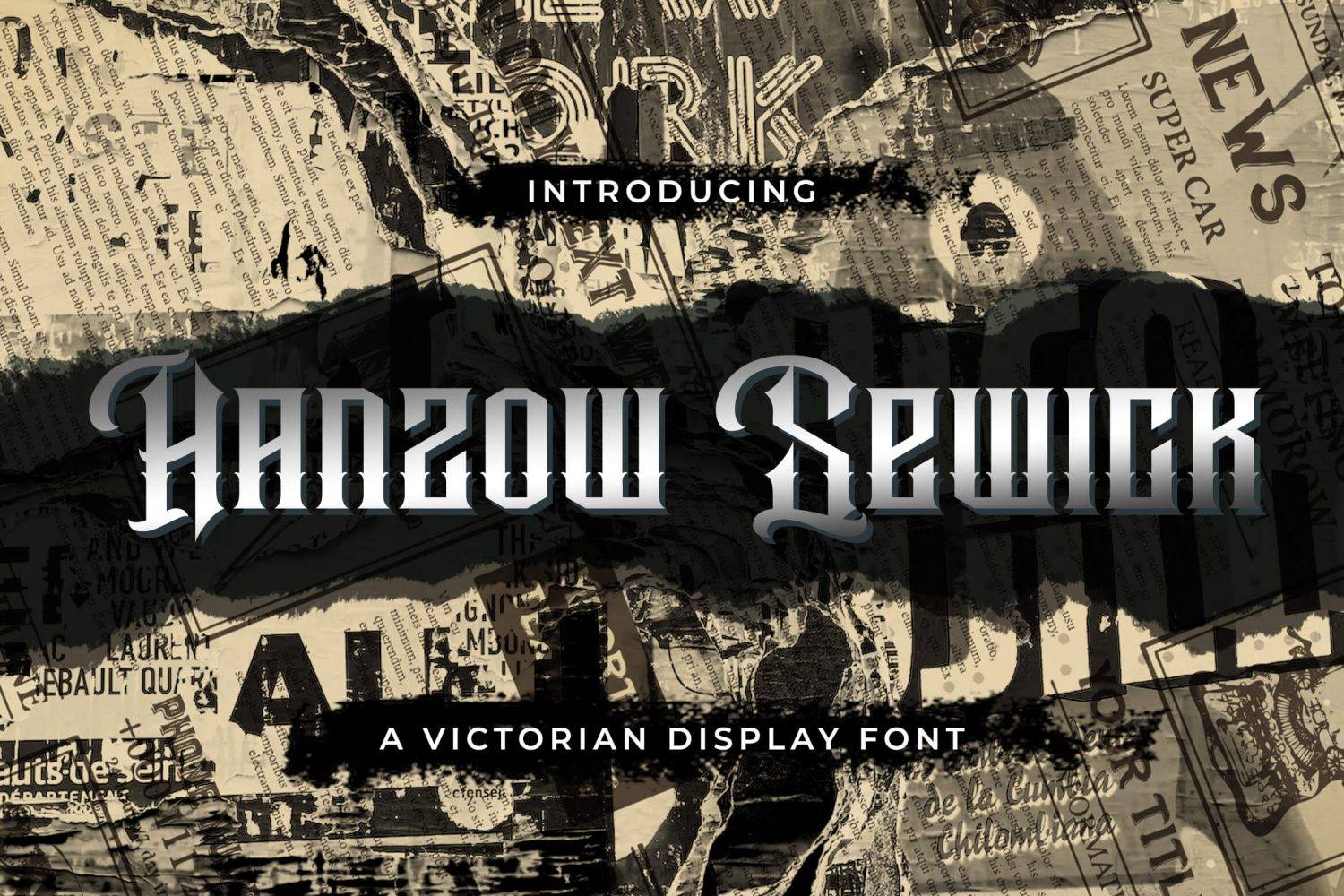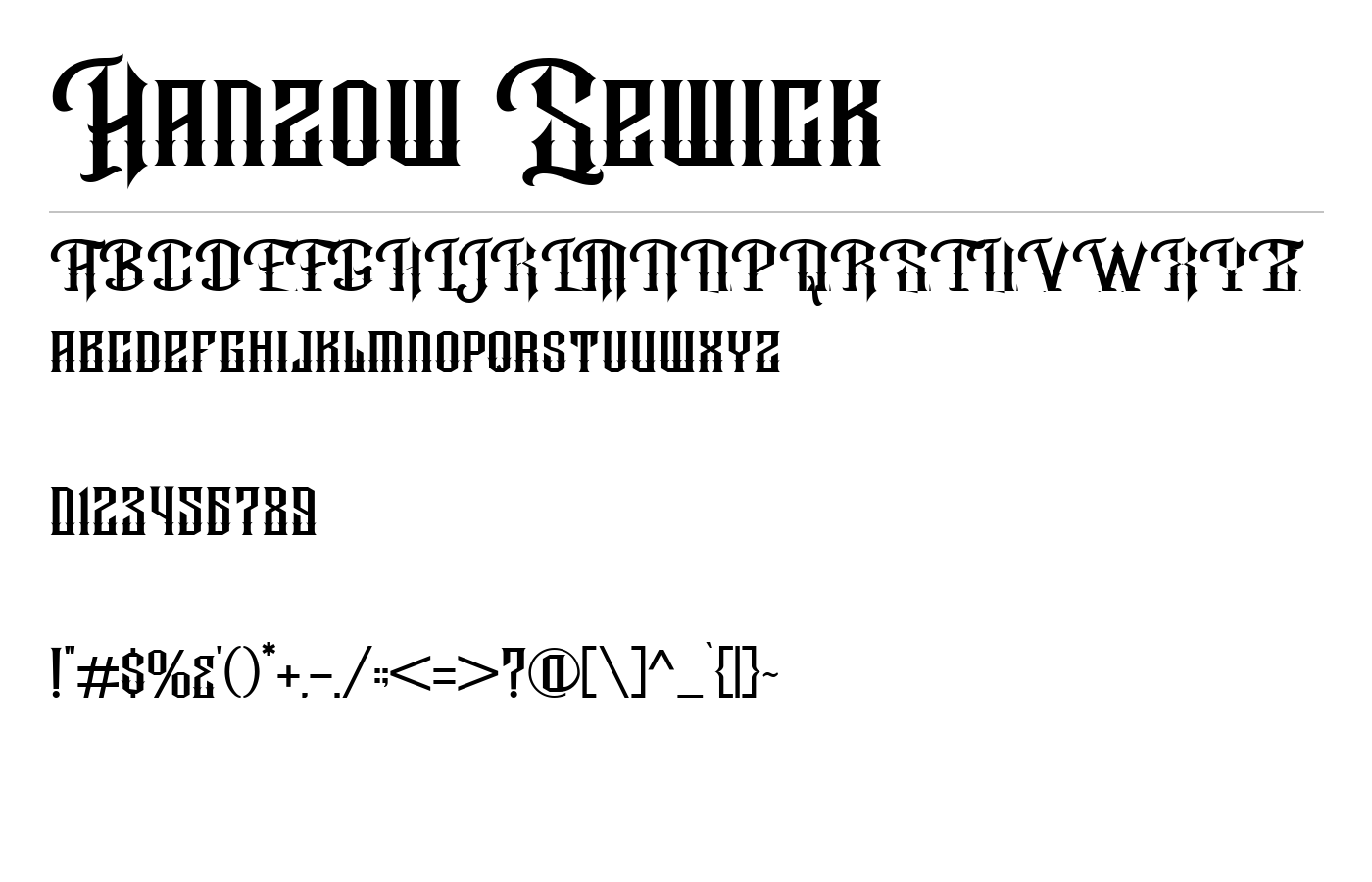
Hanzow Sewick is a striking blackletter-inspired font with bold, condensed uppercase letters featuring sharp, intricate details that evoke a gothic, vintage vibe. Its strong contrast and decorative strokes make it ideal for impactful headlines, logos, and designs seeking a dramatic, old-world character with a modern edge. This font works best in branding and creative projects that want to convey a sense of tradition mixed with bold individuality.
Hanzow Sewick Font
About Hanzow Sewick Font